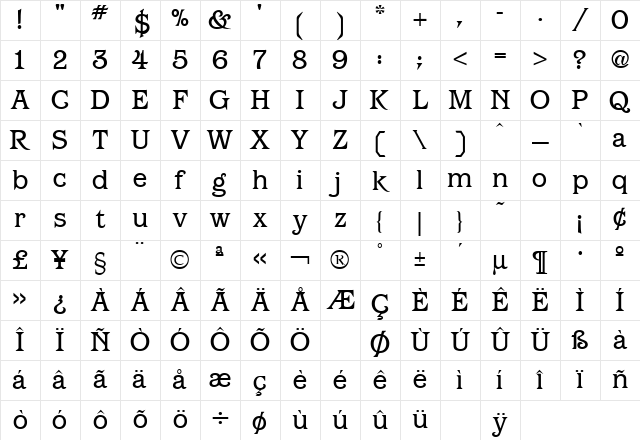
Barcelona Regular
Design Context for Barcelona
Barcelona is a composed and adaptable typeface that performs quietly and consistently across a wide range of design contexts.
Pro Tip: Use Barcelona in both headline and body roles to test its range before committing to a single application.